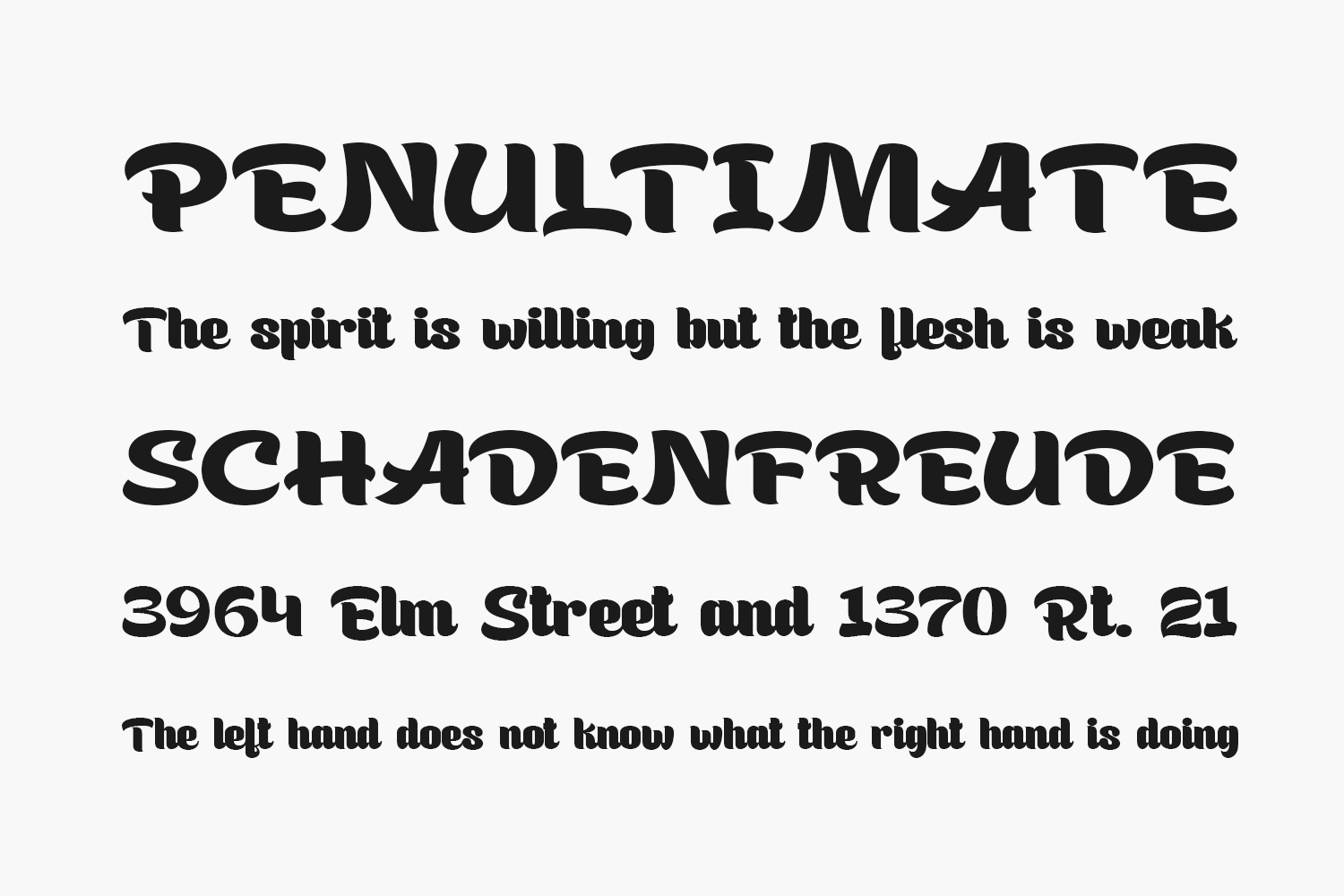
Boldblaster Free Font Family is a gorgeous retro-styled display font. This font reads as strong, confident, and dynamic and can add tons of nostalgic character to your designs. Boldblaster Free Font Family was designed by SIGN Studio and is free for personal use only. Please purchase the full version for commercial use.